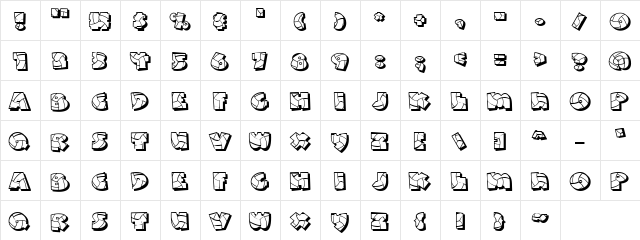
LD Volleyball Regular
Design Context for LD Volleyball Typeface
LD Volleyball is a composed and adaptable typeface that performs quietly and consistently across a wide range of design contexts.